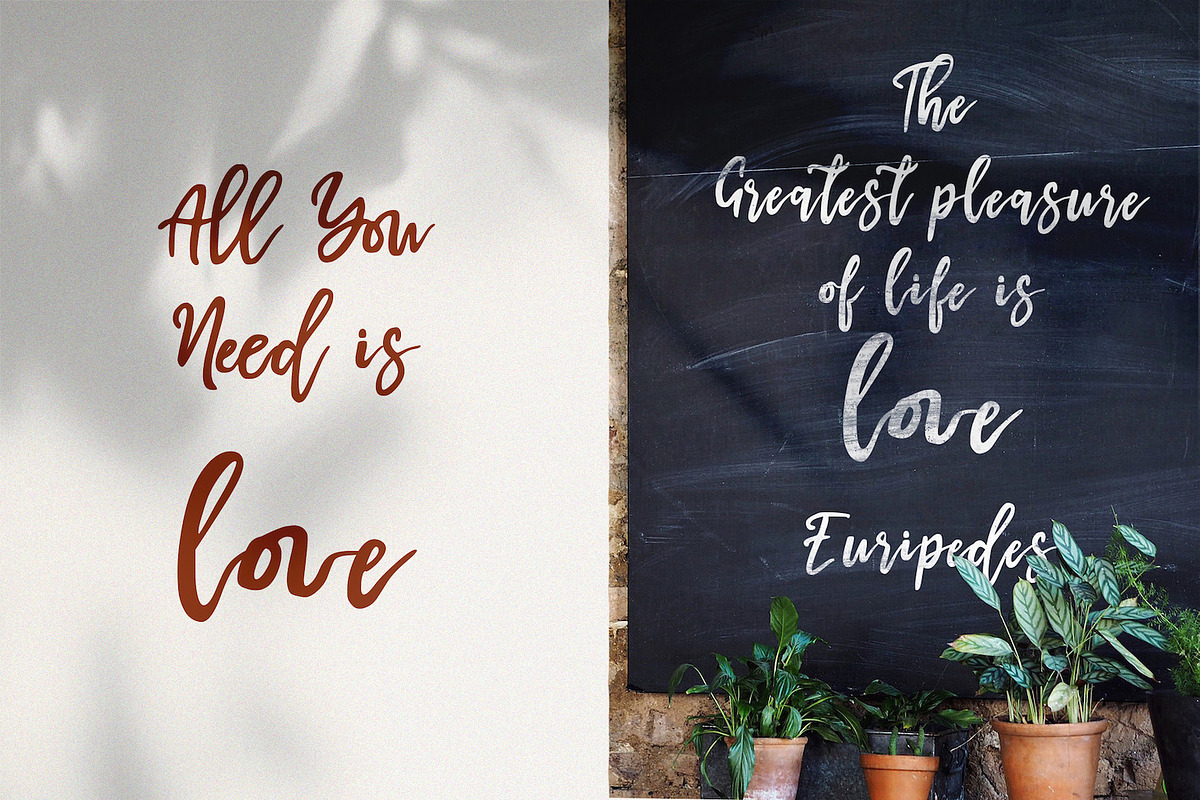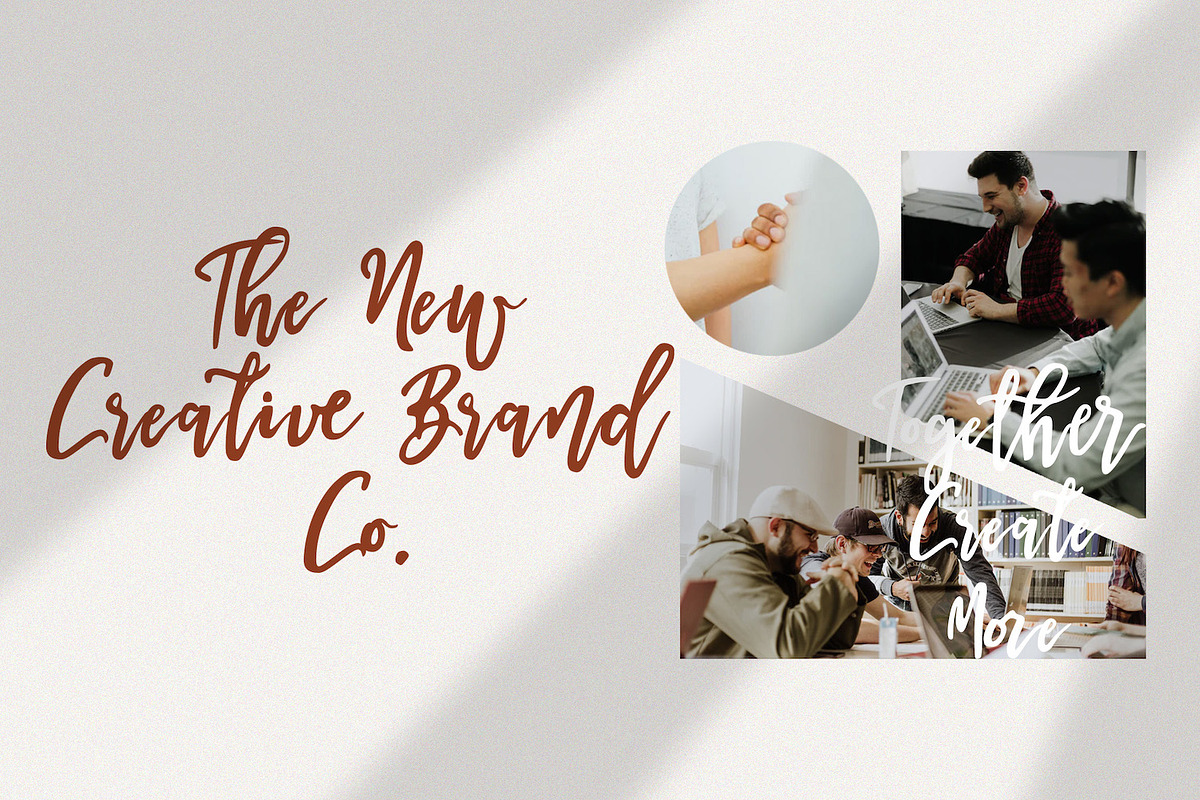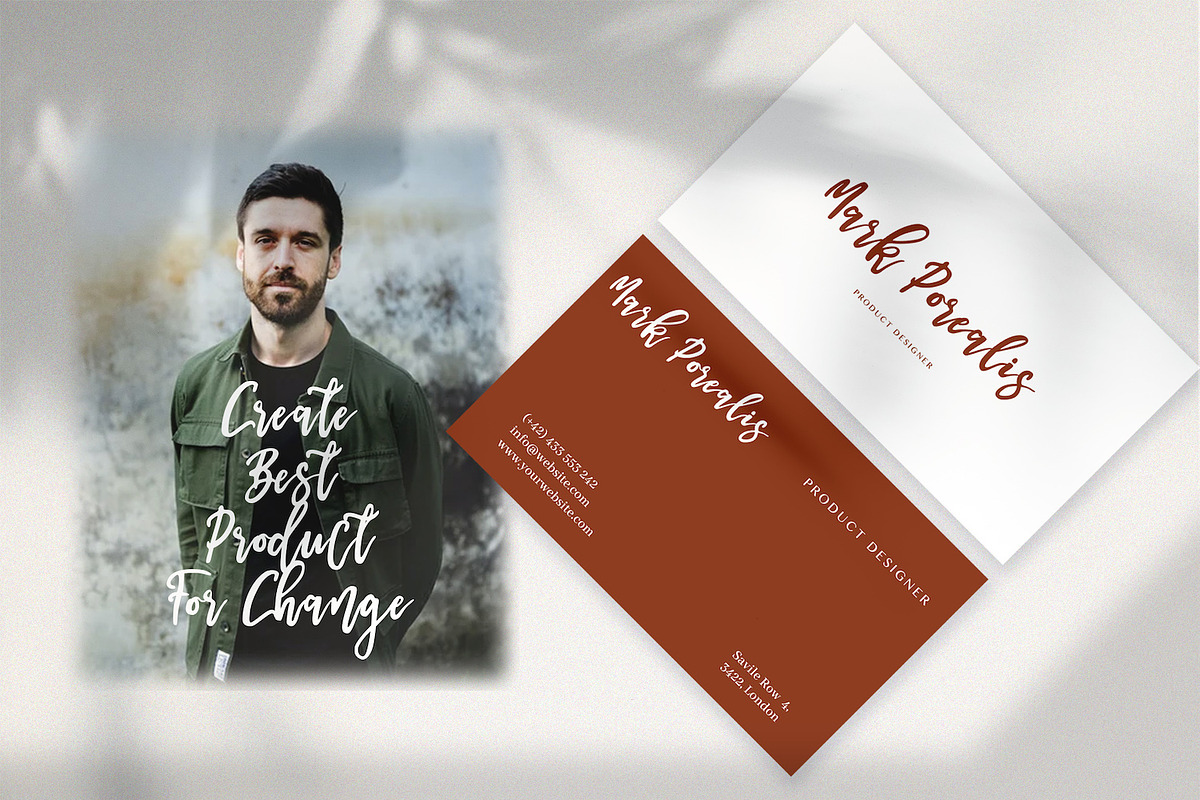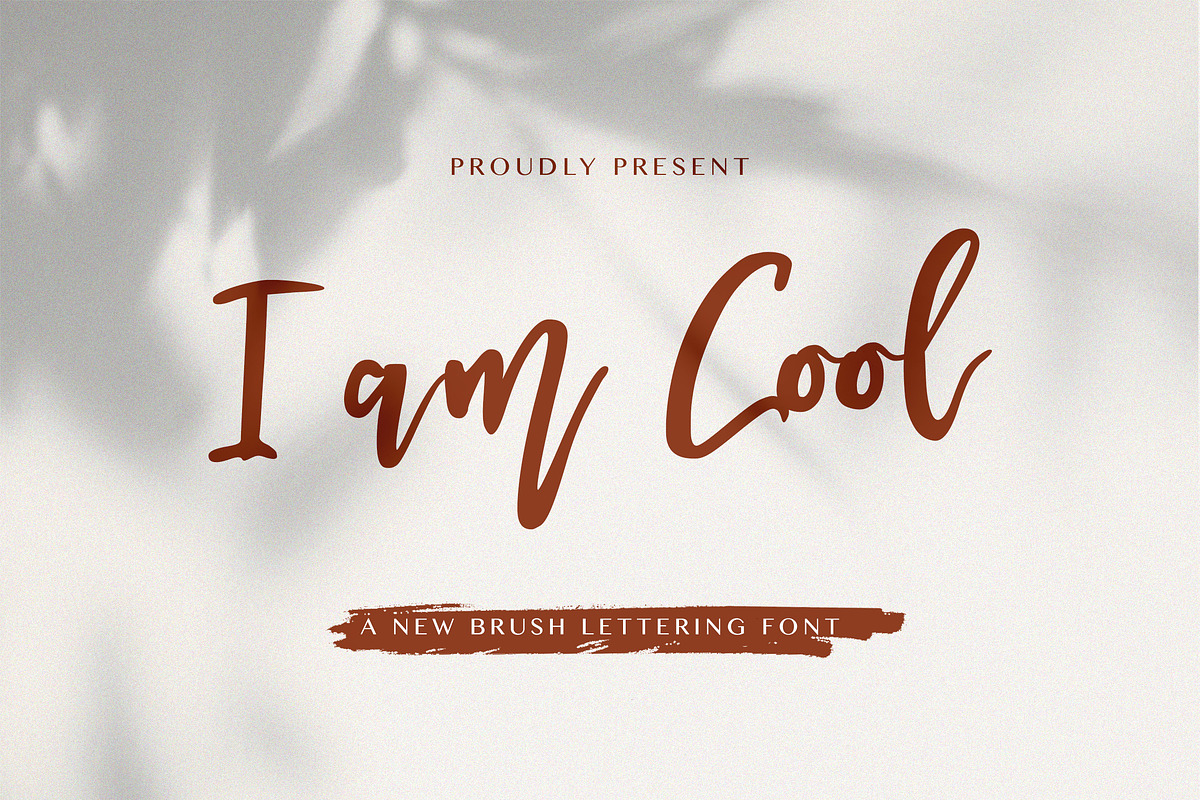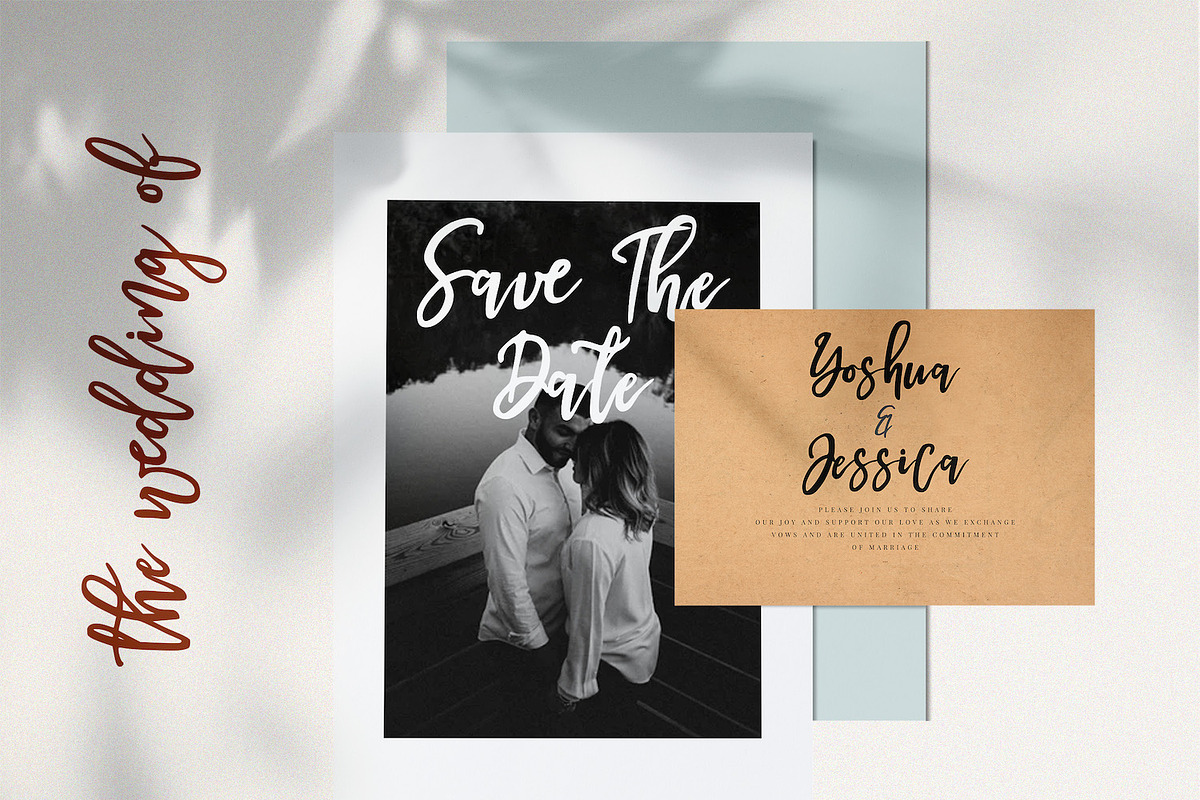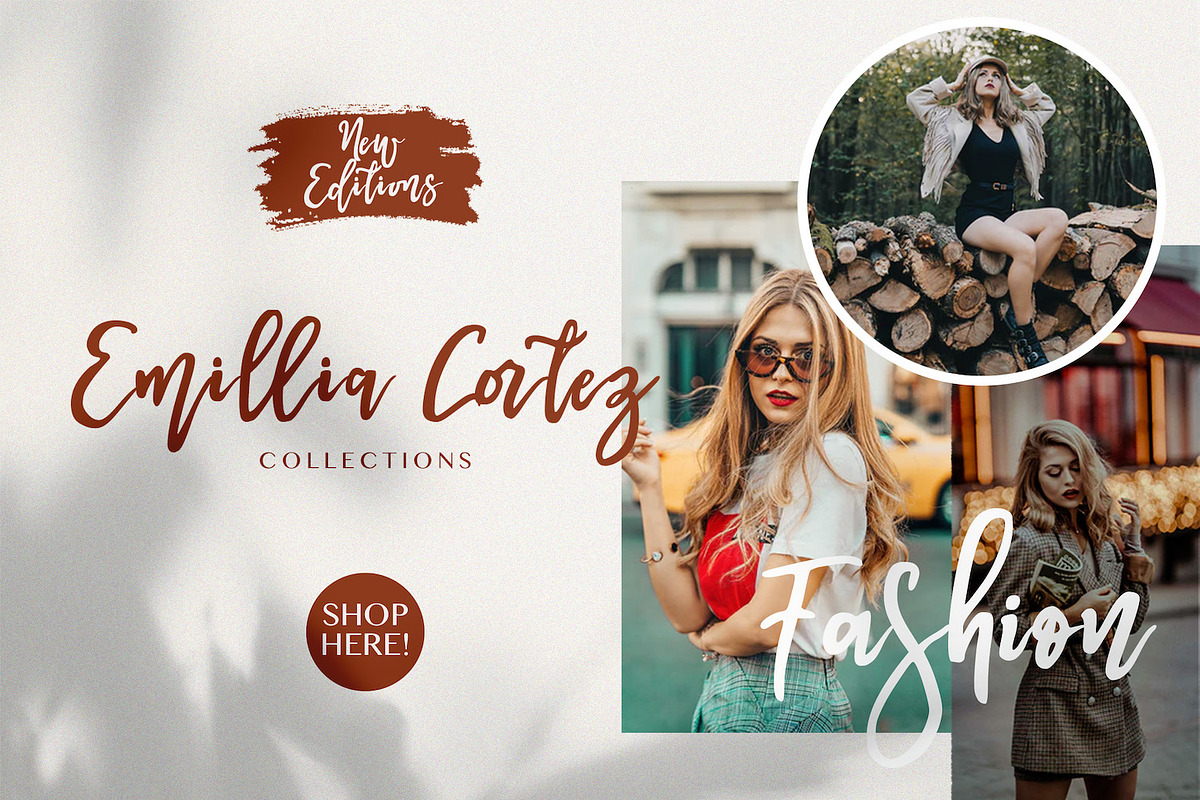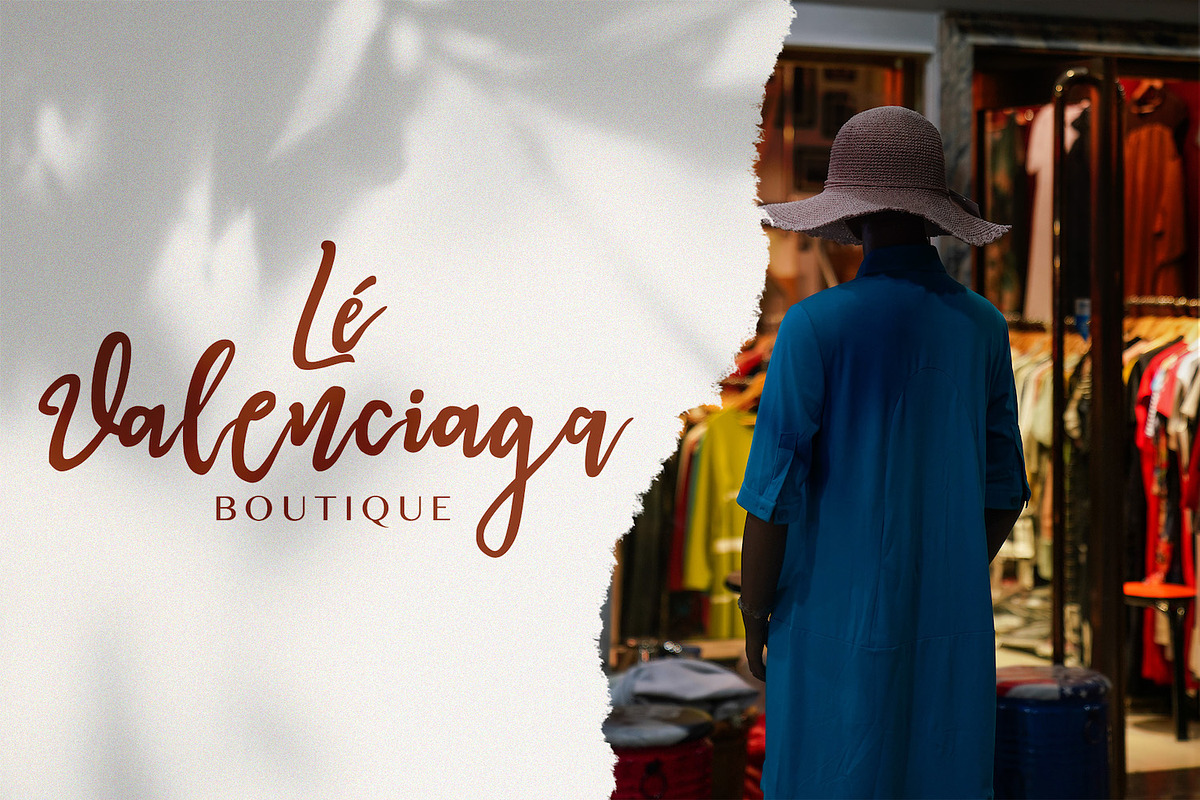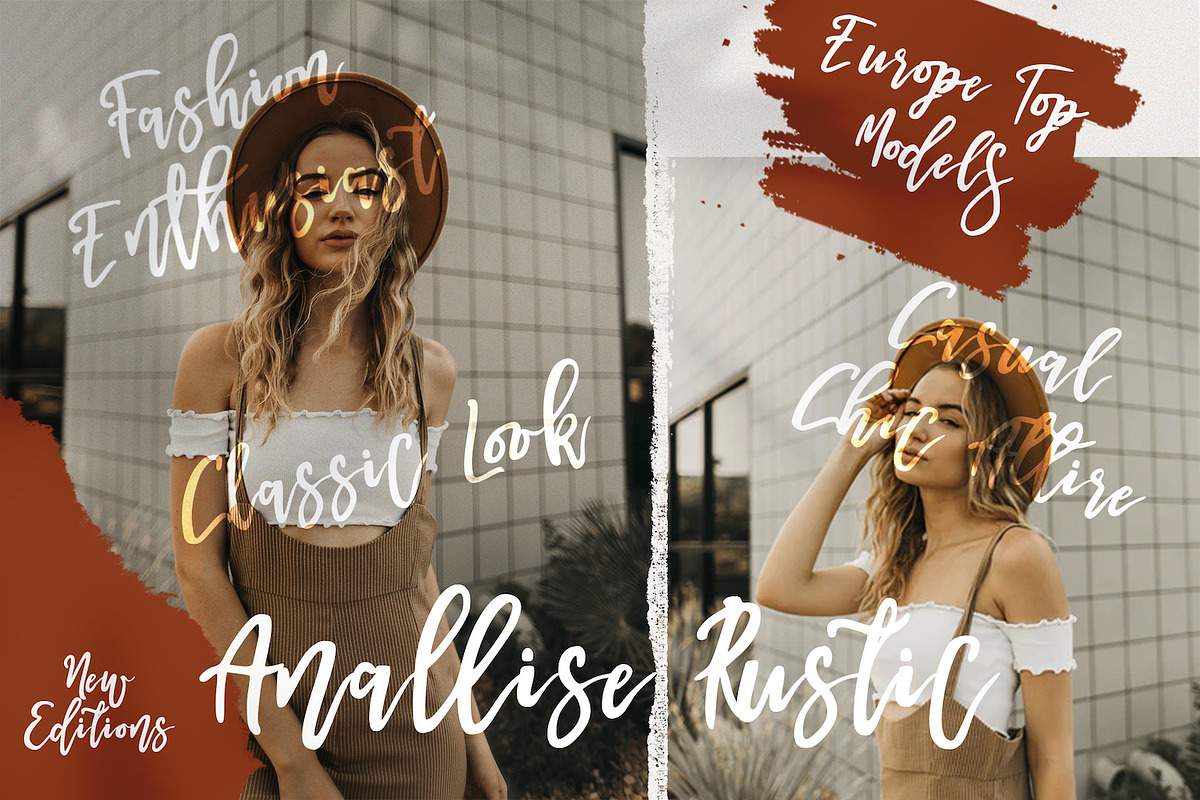
I am Cool - Brush Script Font
Introducing I am Cool - Brush Script Font
I am Cool is a script font with hand lettering brush style. The I am Cool font made with digital brush pen strokes that making this font look authentic. This font is perfect for fashion brand, wedding invitation, business card, logo brand, signature, and then calligraphy.
- This Font contains Elegant, Creative, and has a Unique Concept.
Why I am Cool - Brush Script Font is worth a look
I am Cool - Brush Script Font by StringLabs fits naturally into Branding, posters, packaging, typography.